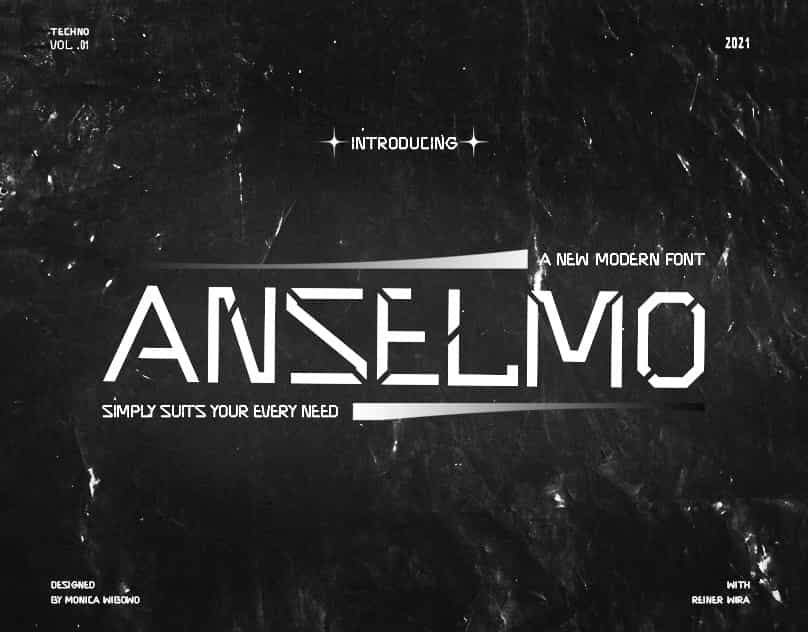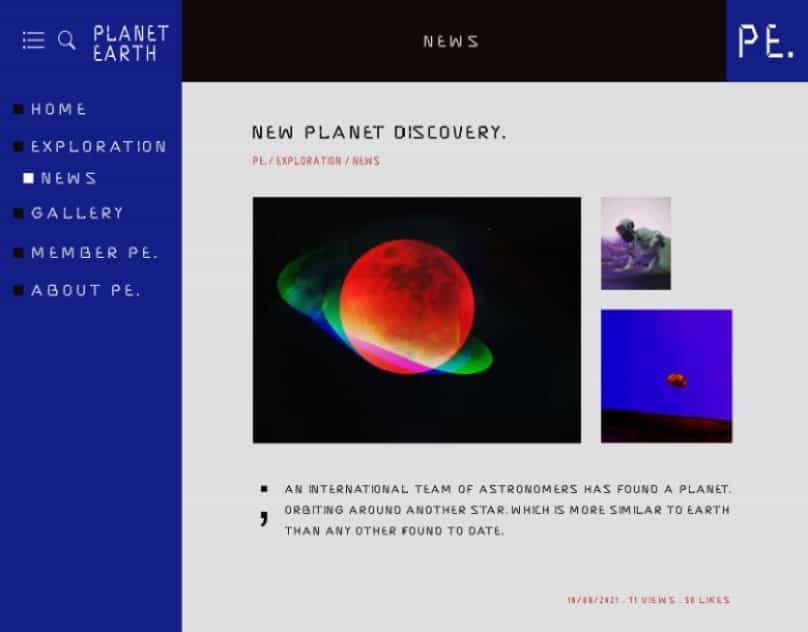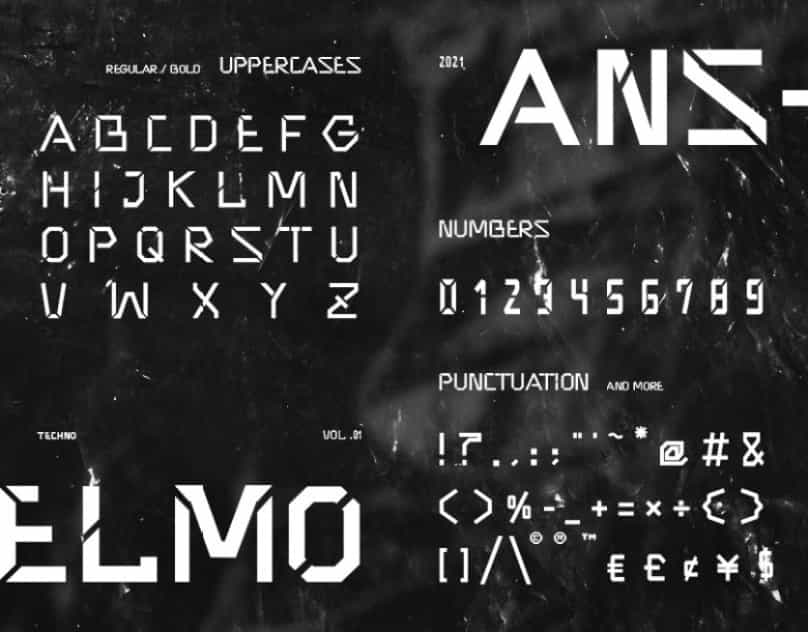
Discover Anselmo Font, part of the Display Stencil Army Techno collection—a versatile and unique font perfect for adding a personal touch to your projects. Download it for free and enjoy crafting designs with style, from invitations to social media posts. This font is available exclusively for personal use, giving you the freedom to create without limits. Unlock your creativity with Anselmo Font today!
Anselmo Font is an attractive collection of futuristic and stylized fonts. Perfect for sci-fi, tech, digital & geometric themes; simple & modern this font will elevate any creative project to greater levels. Bold and beautiful all at the same time!